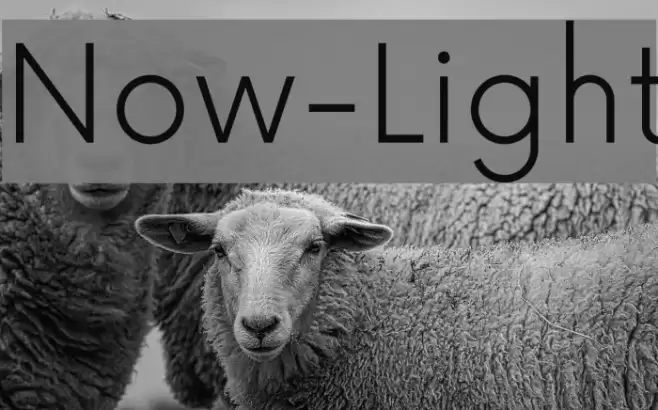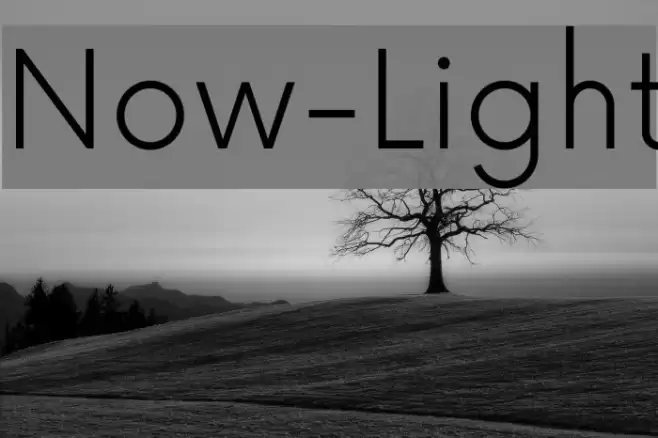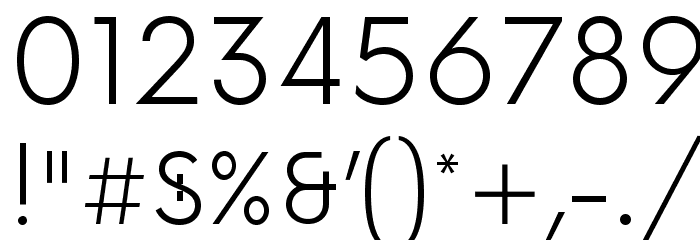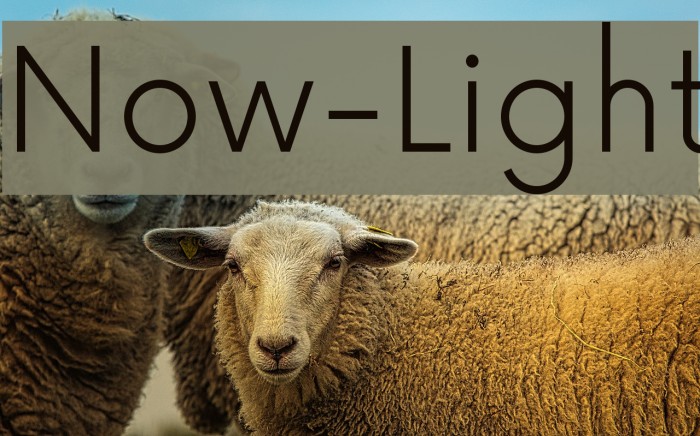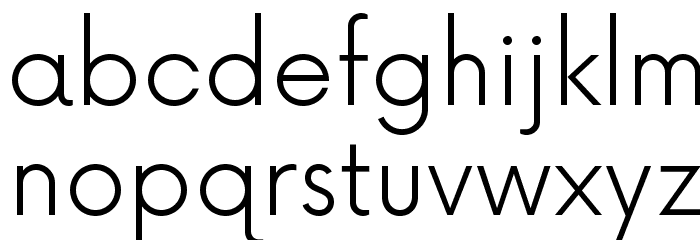
Now-Light Font
Now-Light Description
This font features a clean and modern sans-serif design with a geometric structure. The characters are evenly spaced with a consistent stroke width, providing a harmonious and balanced appearance. The uppercase and lowercase letters are well-proportioned, making it highly legible. The numerals and special characters maintain the same geometric style, ensuring uniformity across all text elements. Its simplicity and clarity make it suitable for a variety of design applications, from digital interfaces to print media.
A modern, geometric sans-serif font with clean lines and balanced proportions from Uncategorized fonts.
- Proposed Projects: Ideal for branding, web design, corporate materials, and editorial layouts.